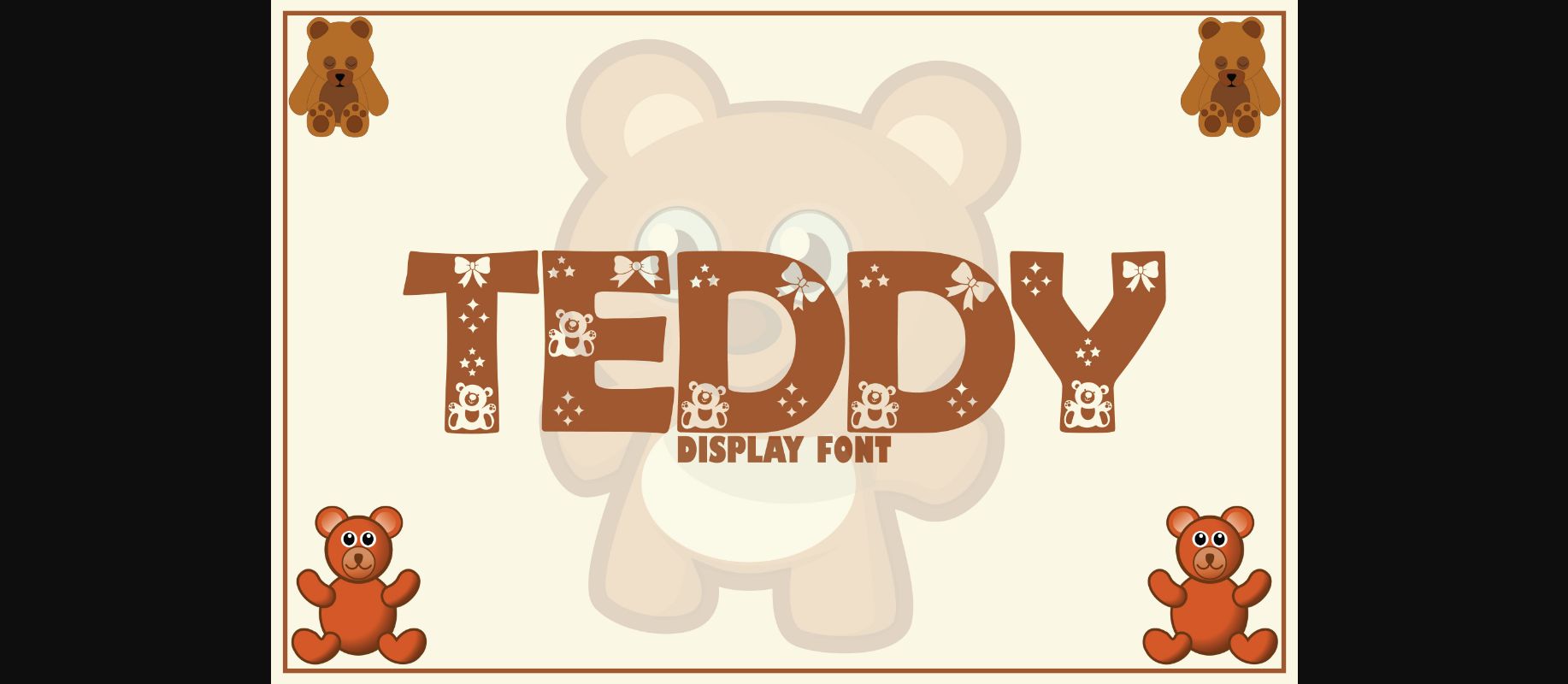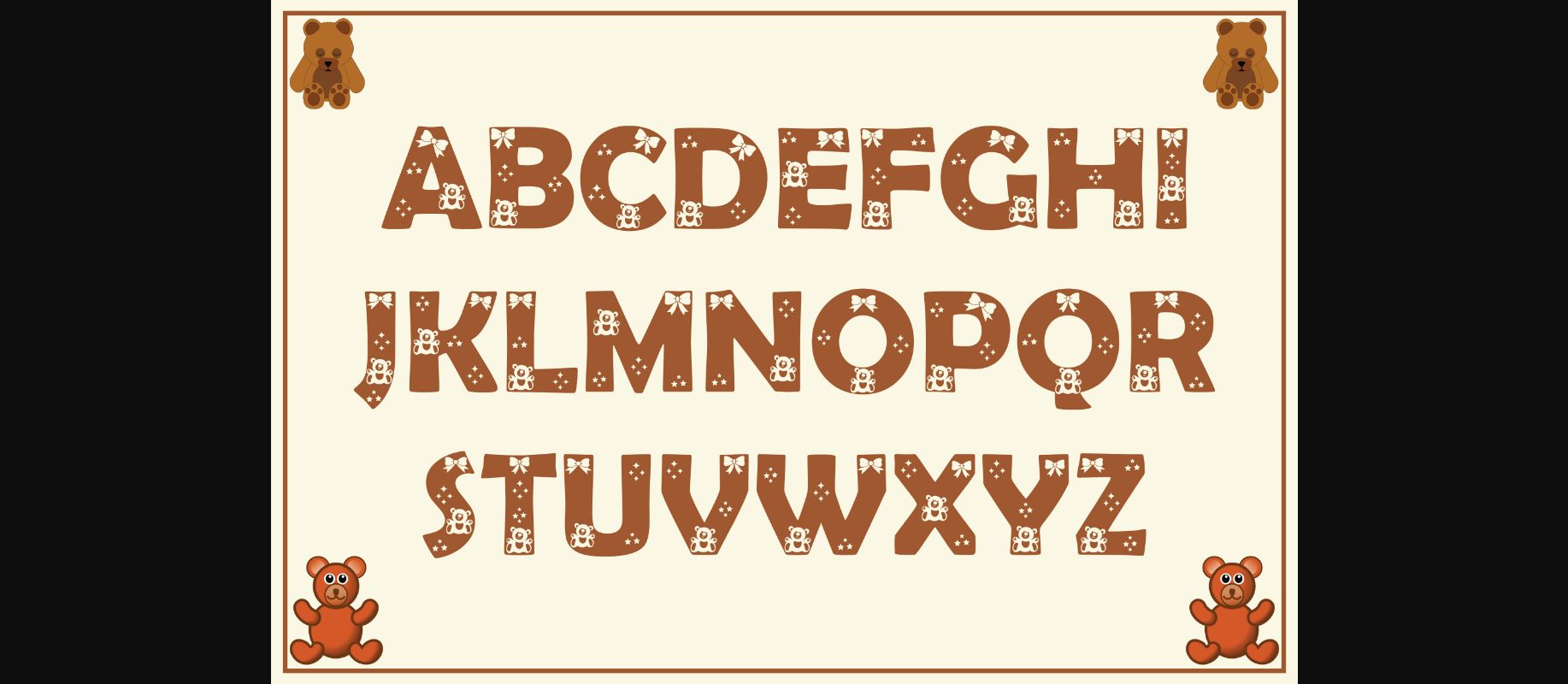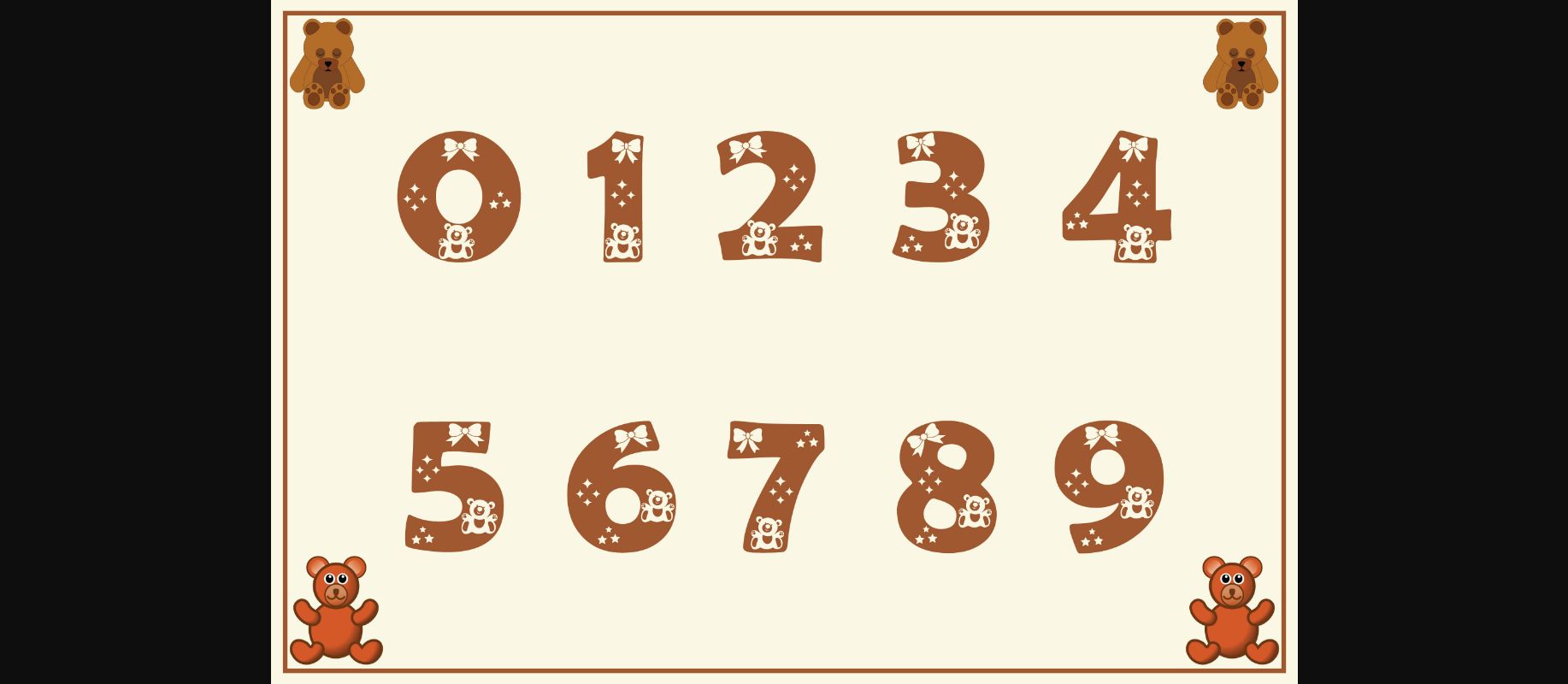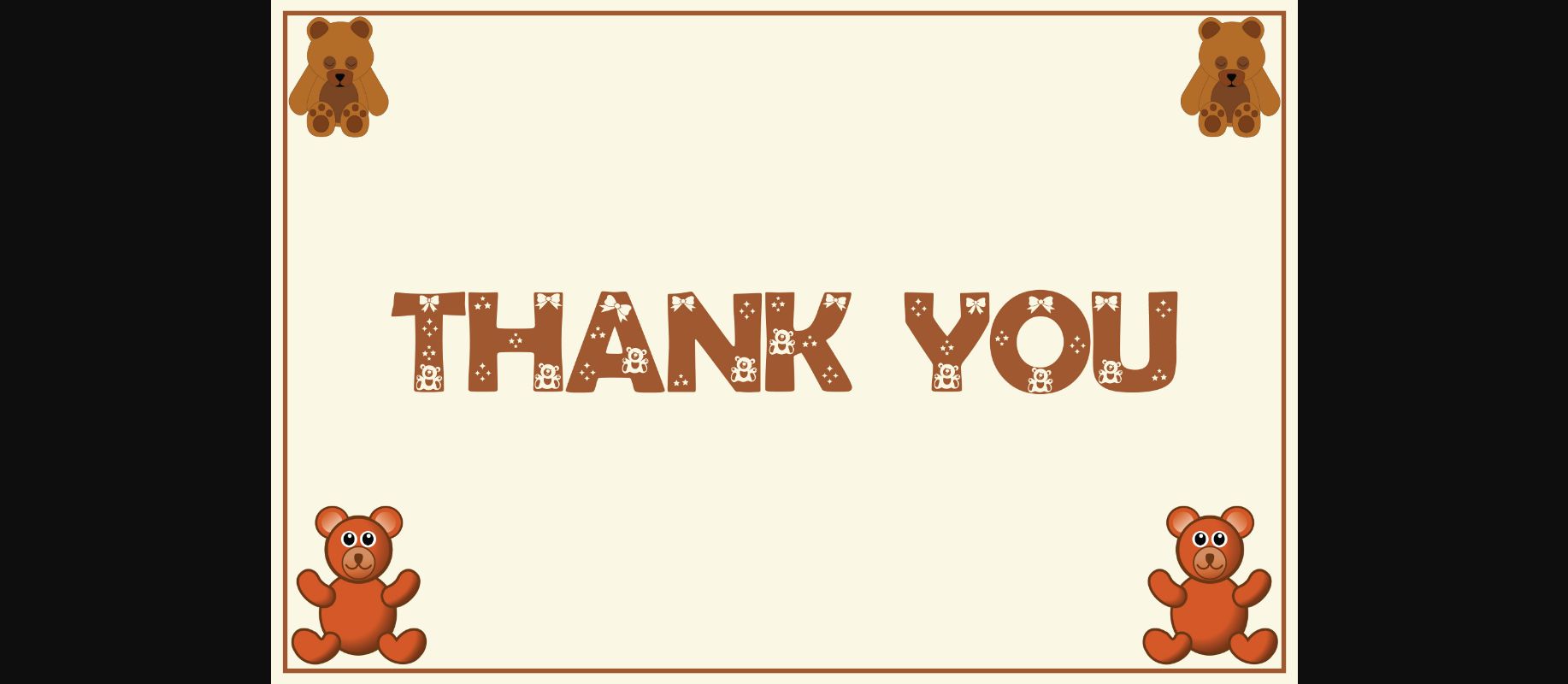
About Teddy Font
Teddy is a fun decorative display font. It is perfectly suitable for any design or crafty idea! Add it confidently to your projects and you will love the results!